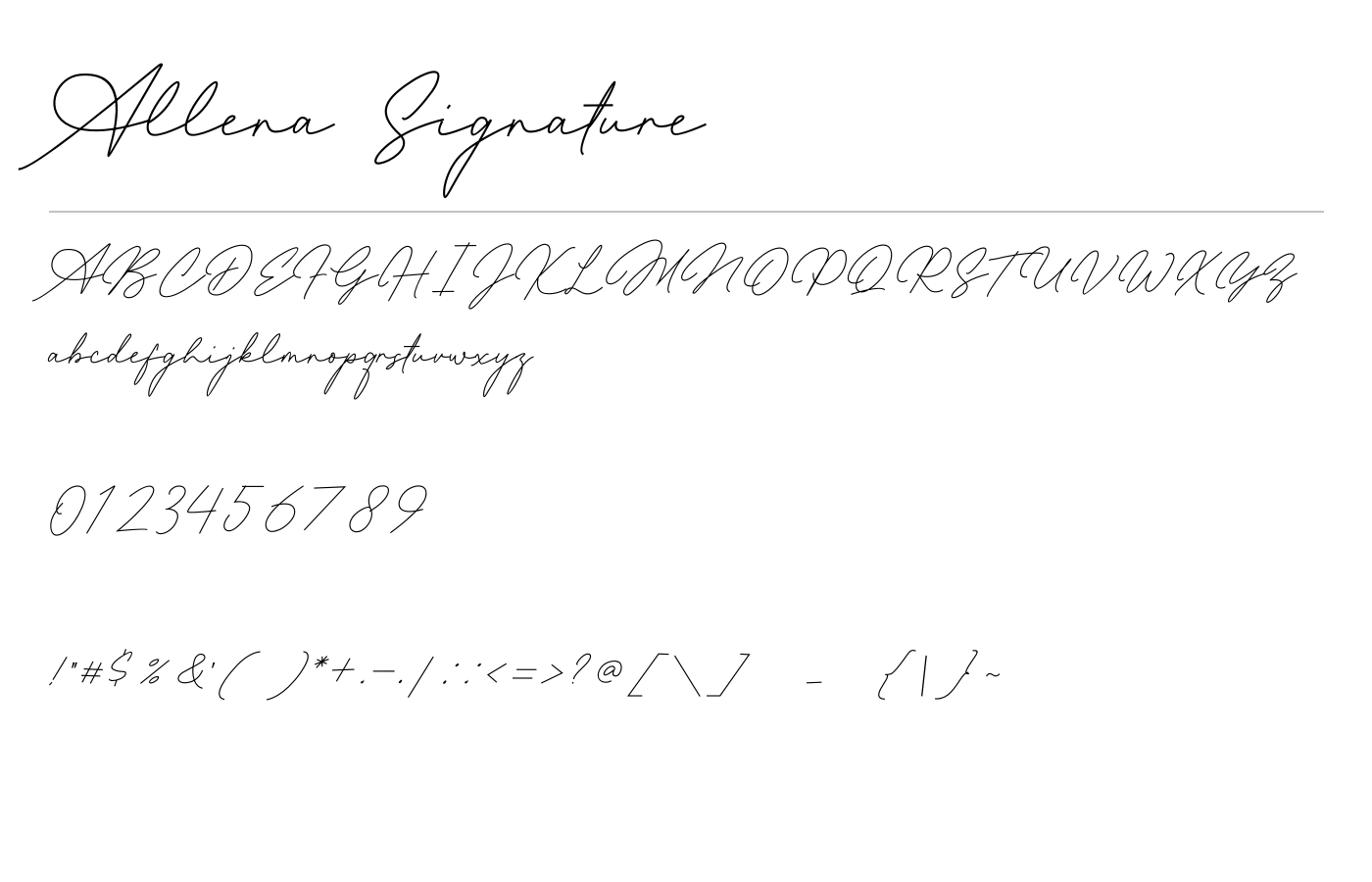
Allena Signature Font is a delicate, elegant script that mimics natural handwriting with smooth, flowing strokes and slender letterforms. Its light weight and airy style give it a refined, personal touch, making it perfect for luxury branding, wedding invitations, and sophisticated logos. This font conveys a sense of warmth and individuality, ideal for designs that want to feel both stylish and approachable.
Allena Signature Font
About Allena Signature Font